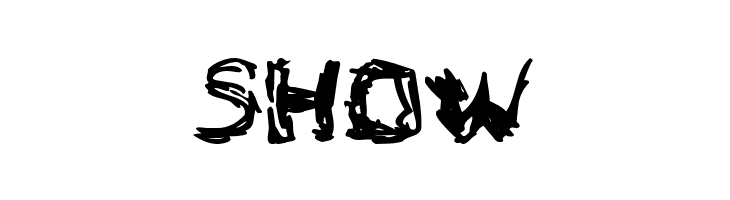
Spoken PERSONAL USE ONLY Font
- Font: Spoken PERSONAL USE ONLY
( Fonts by Dave Kellam - Brian Stuparyk - www.eightface.com )
A bold, chaotic, and textured font with a graffiti-like style.